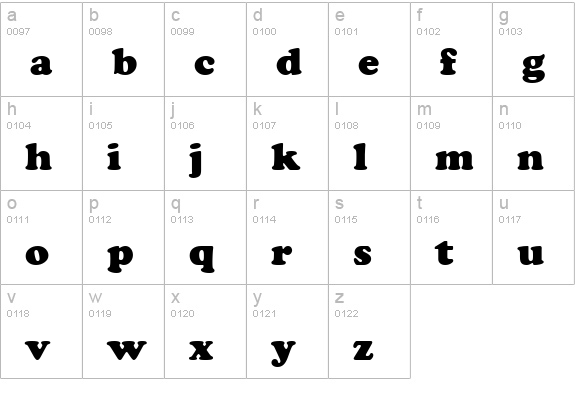
Introducing CooperBlaD font, a versatile and elegant typeface that exudes sophistication and style. This captivating font features a unique blend of classic and modern elements, making it perfect for a wide range of design projects. With its sleek lines and distinctive curves, CooperBlaD adds a touch of refinement to any text or headline. What sets CooperBlaD font apart is not only its timeless appeal but also its availability for free download at FontsMarket.com. This means that you can access this stunning font without any cost, making it a valuable addition to your font collection. Whether you're designing a logo, creating a flyer, or crafting a website, CooperBlaD font is sure to elevate your project to new heights. Embrace the beauty and versatility of CooperBlaD font today and unlock endless creative possibilities. Download this exquisite typeface for free at FontsMarket.com and make a statement with your designs.